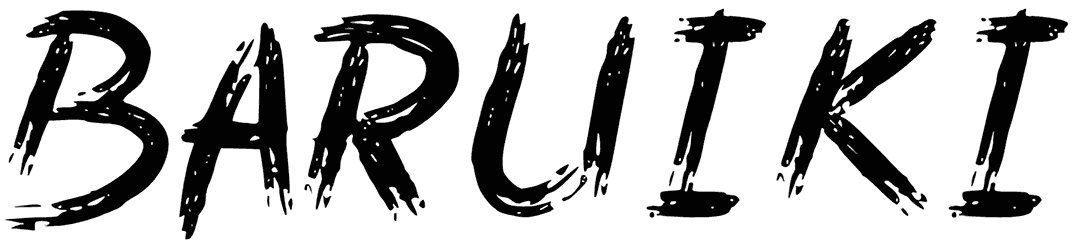
Baruiki Font
Place this brush font on your upcoming projects, from posters, greeting cards, and banners to social media posts, then create an eye-catching mood. Although this masterwork doesn’t contain lowercase letters, it leaves no stone unturned in accentuating your design. It’s easy to achieve an urban vibe with this messy font named Baruiki. We guarantee that browsing our large display of fonts will make you happy.